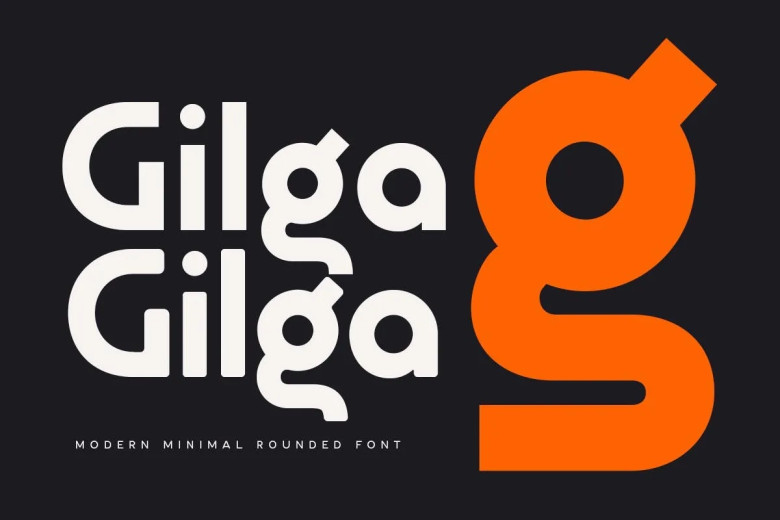
Gilga Font
Gilga is a rounded font of modern minimalist type, a geometric font with a rather unique, at the same time, luxury and very crisp sans serif font , which you can easily replace choosing the options of getting variations. It is a sans serif type that resembles minimalism meaning that projects such as branding, logos, posters, social media posts, ads, product packaging, product designs, labels, photos, watermarks, invitations, stationery, and any project of high standard readability are the best suited for this font.
Gilga Sans Serif Font